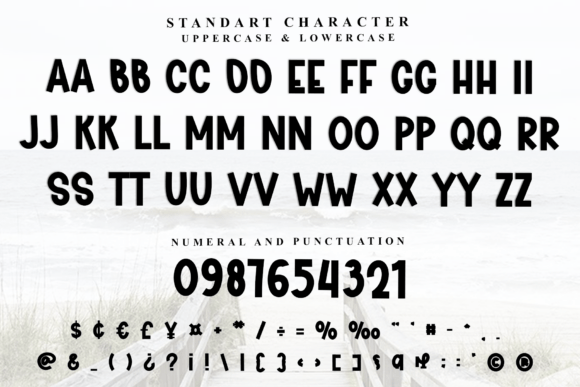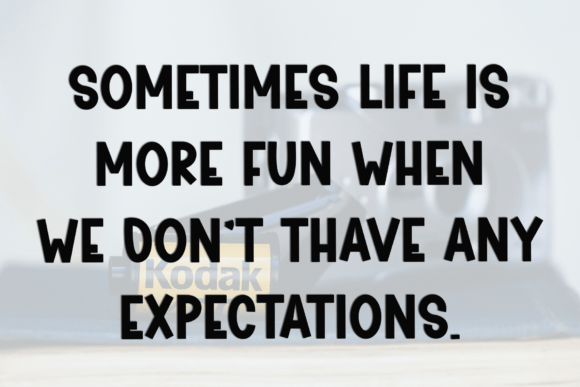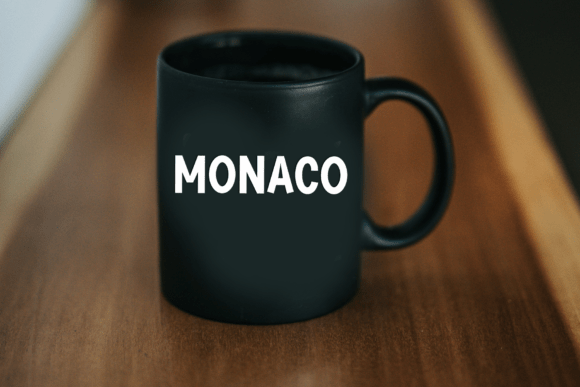
Introduction to Creative Brand Font
Remember that moment when a well-designed title perfectly captures the essence of your creative project? It’s a feeling that stays with you, making all the hard work worth it. For designers, finding the right font can be the difference between a mediocre design and a masterpiece. In this article, we’ll dive into the world of Creative Brand Font, a modern display font that’s sure to elevate your designs.
As a valuable design resource, Creative Brand Font boasts bold angles, clean lines, and a transparent background that makes it perfect for branding, advertising, and impactful titles. Its high-quality design ensures that your message stands out from the crowd. And the best part? It’s available for free download, making it an accessible addition to any designer’s toolkit.
Key Features of Creative Brand Font
- High-quality font with a wide range of creative styles suitable for various design projects, including logos, brochures, and business cards.
- Transparent background option for easy layering and customization in creative projects.
- High-resolution font (up to 1024 x 1024 pixels) for crisp and clear display in various design contexts.
- Perfect for creating a unique and recognizable brand identity, thanks to its extensive character set and creative flair.
- Supports a wide range of languages, making it a versatile design resource for global brands and creative projects.
Honest Review: Creative Brand Font
As a designer, I’m always on the lookout for high-quality design resources to elevate my creative projects. Recently, I had the chance to try out the Creative Brand Font, and I must say it’s been a game-changer.
- Professional and modern design aesthetic, perfect for creative projects
- Transparent background option, making it easy to use on any design surface
One of the things I appreciate most about the Creative Brand Font is its versatility. It’s perfect for designing logos, branding materials, and even digital products. The font’s clean and modern design aesthetic makes it easy to use and customize.
- Some users may find the font to be too minimalist, lacking character and personality
- The free version has limited features compared to the paid version
Overall, I’m impressed with the Creative Brand Font. It’s a valuable design resource that can help take your creative projects to the next level. While it may have some limitations, the benefits far outweigh the drawbacks. I highly recommend giving it a try!
The Creative Brand Font is ideal for a variety of creative projects, including:
- Marketing materials and brochures
- Graphic design and printing
To get the most out of the Creative Brand Font, consider the following tips:
- Use the font in conjunction with a transparent background for a clean and modern look.
- Experiment with different font sizes and styles to achieve the desired visual impact.